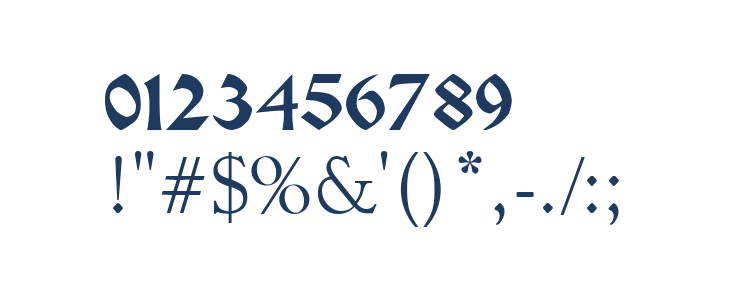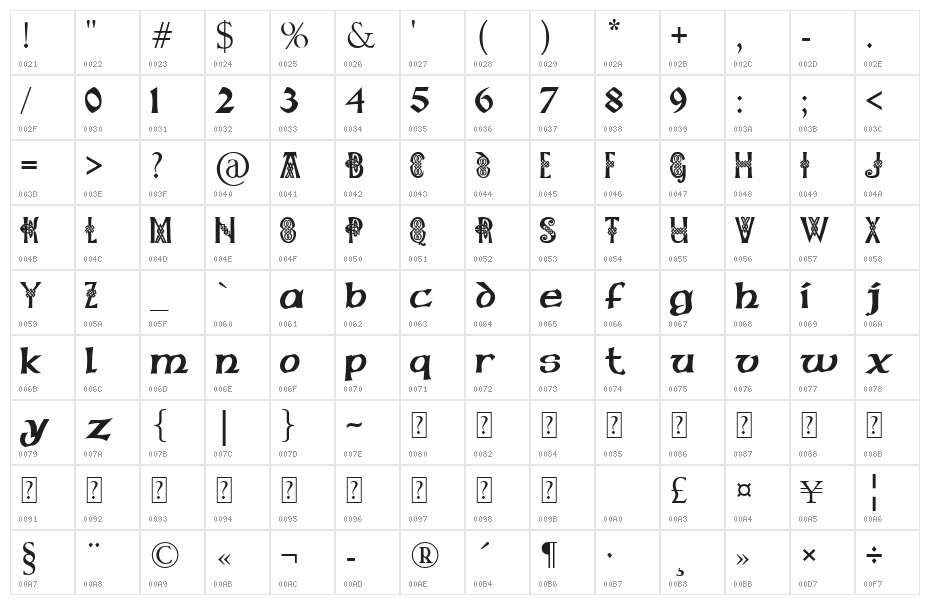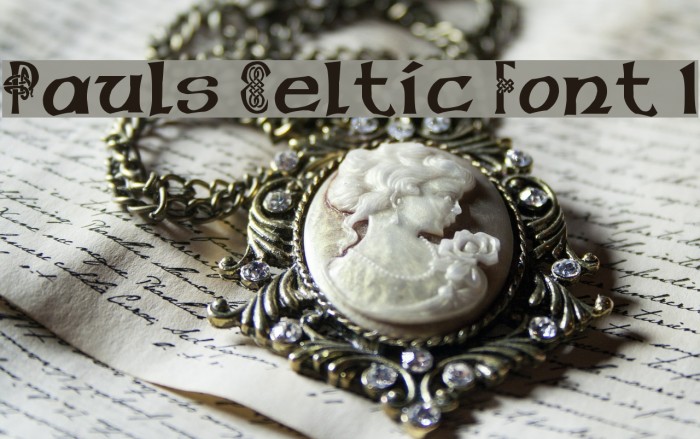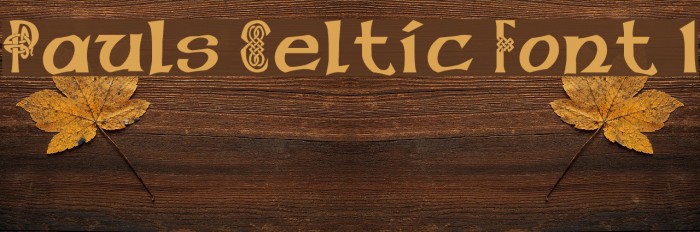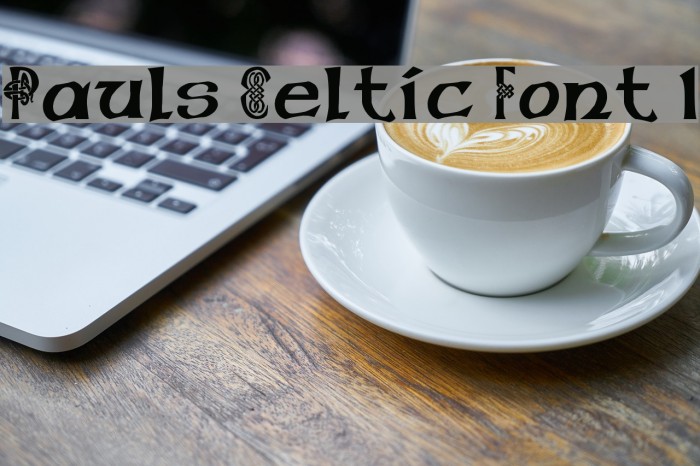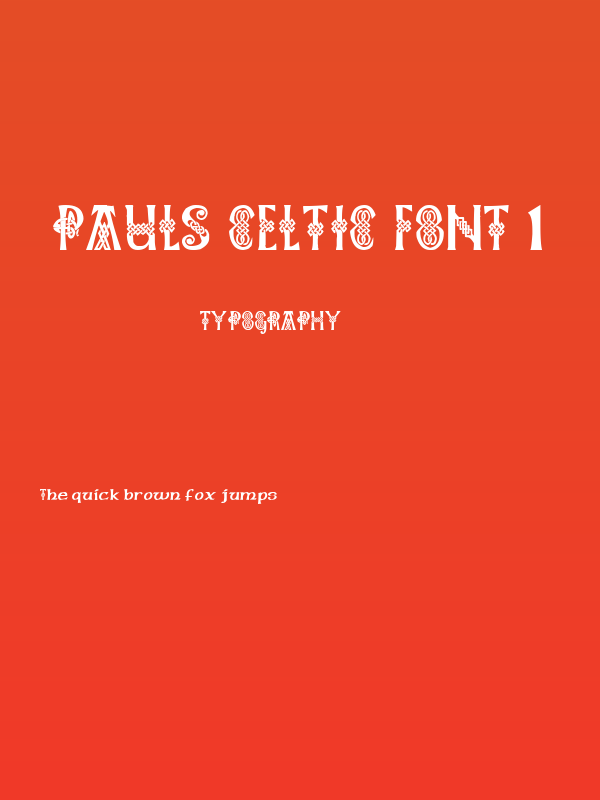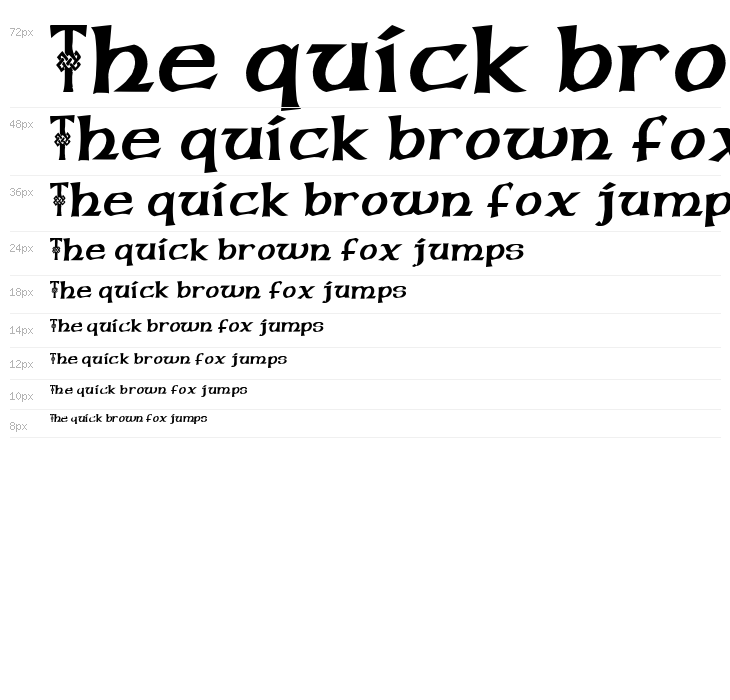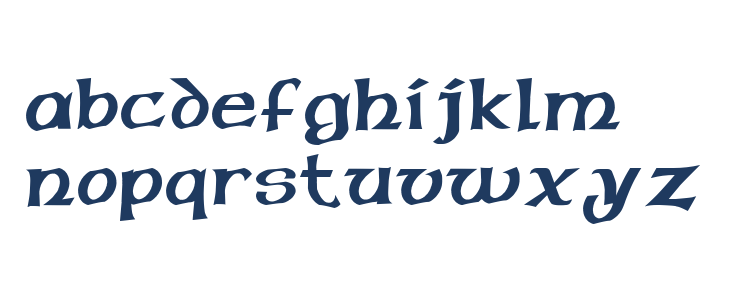
Pauls Celtic Font 1 Font
Pauls Celtic Font 1 Description
This font features a unique blend of traditional Celtic design elements with modern flair. The uppercase letters are intricately designed with knotwork patterns, creating a sense of historical depth and cultural richness. The lowercase letters maintain a more straightforward yet still decorative style, offering a balance between readability and artistic expression. The numerals and special characters follow suit, with bold strokes and distinctive shapes that make them stand out. This font is ideal for projects that require a touch of ancient mystique or cultural heritage, such as themed events, historical publications, or artistic designs.
| Use Case | Logos, Headlines |
| Proposed Projects | Ideal for themed events, historical publications, and artistic designs. |